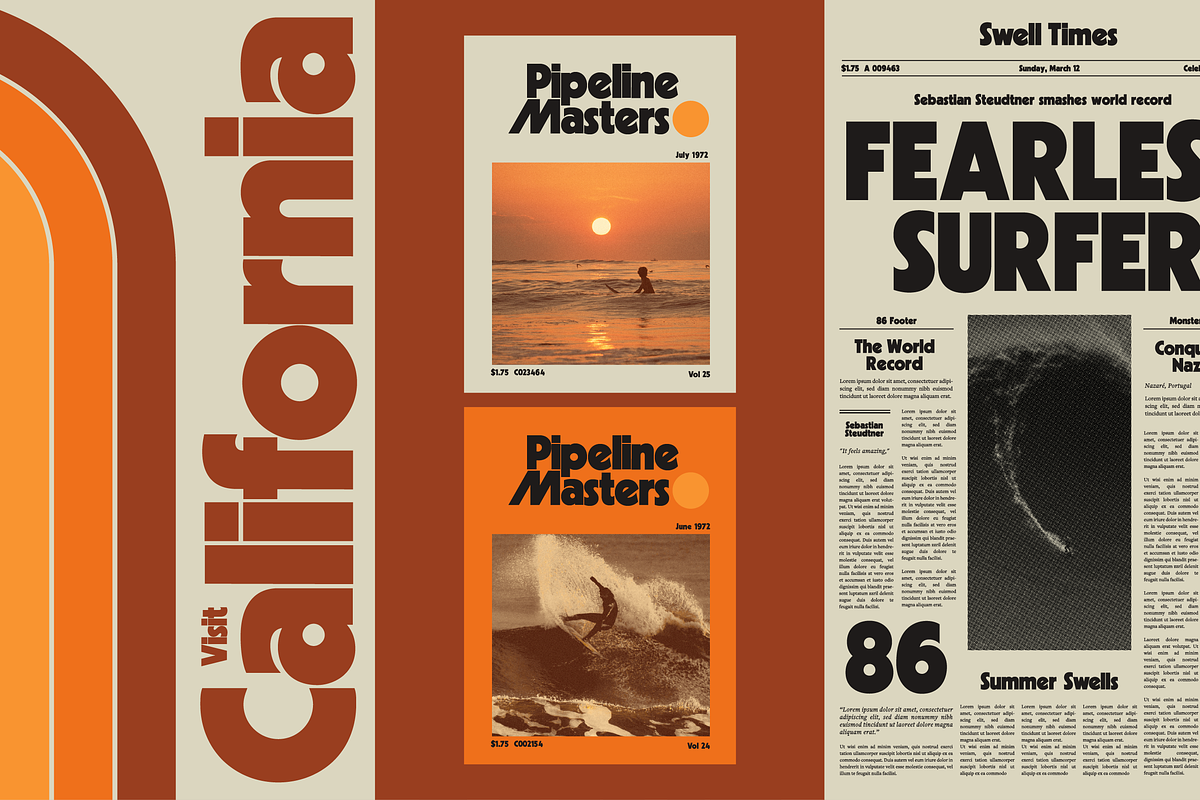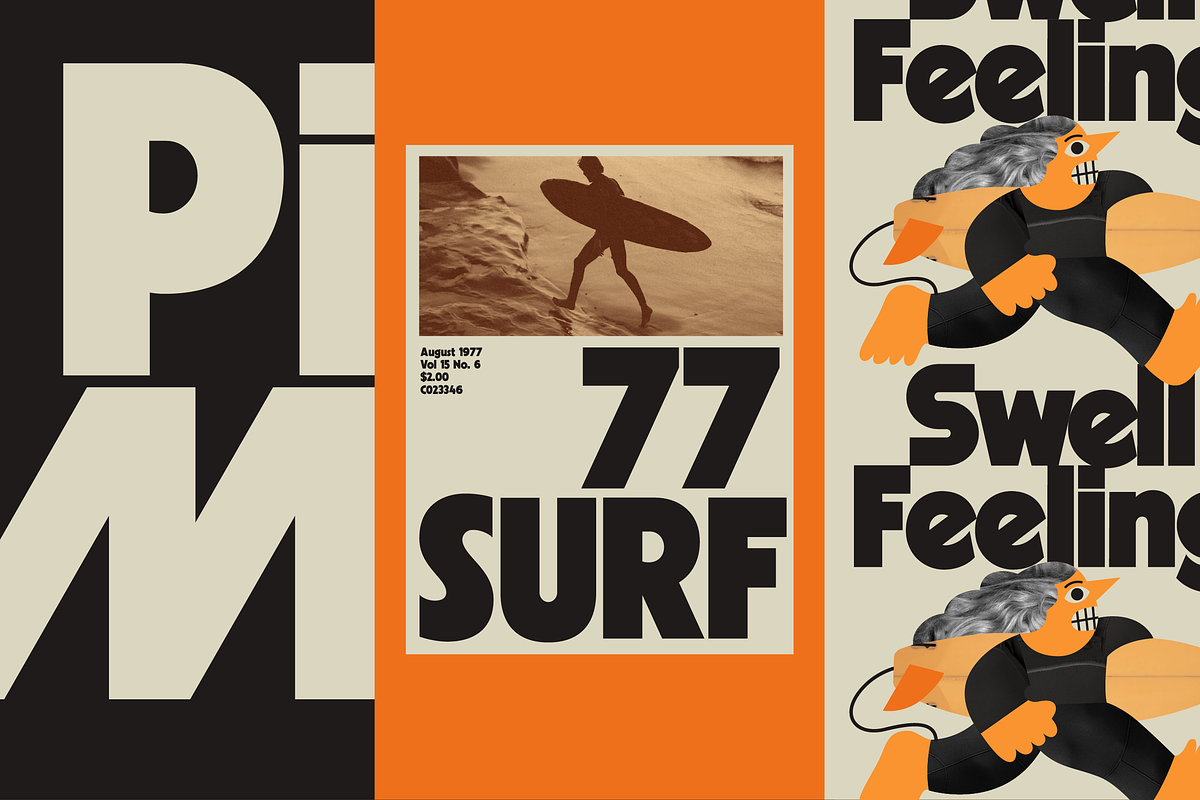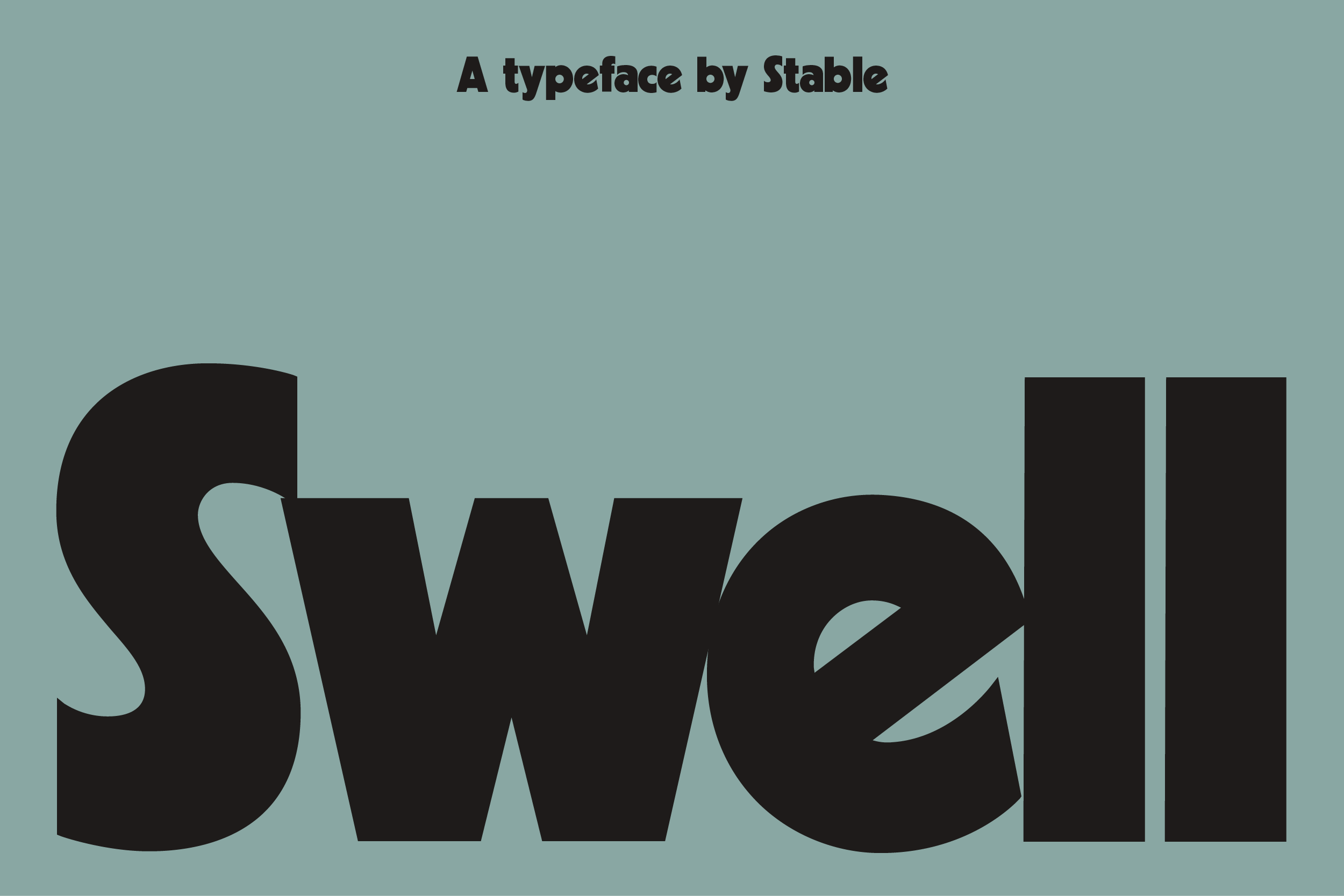
Swell - Display Font
Swell is a new take on the the timeless classic, Kabel Black. This bold, geometric sans includes uppercase, lowercase, numbers, punctuation, and over 50 alternative glyphs inspired by other classics like Avante Garde, Marvin, and Blippo. Surfs up!
Great eye-catching font... but there isn't much of it. Swell contains only 158 glyphs... so in my opinion there is a lot of room for improvement. I'd like to see alternates for the Avant Garde-like "Q" and "&" and possibly the company logo where the used to be and is now considered a "signature" glyph.